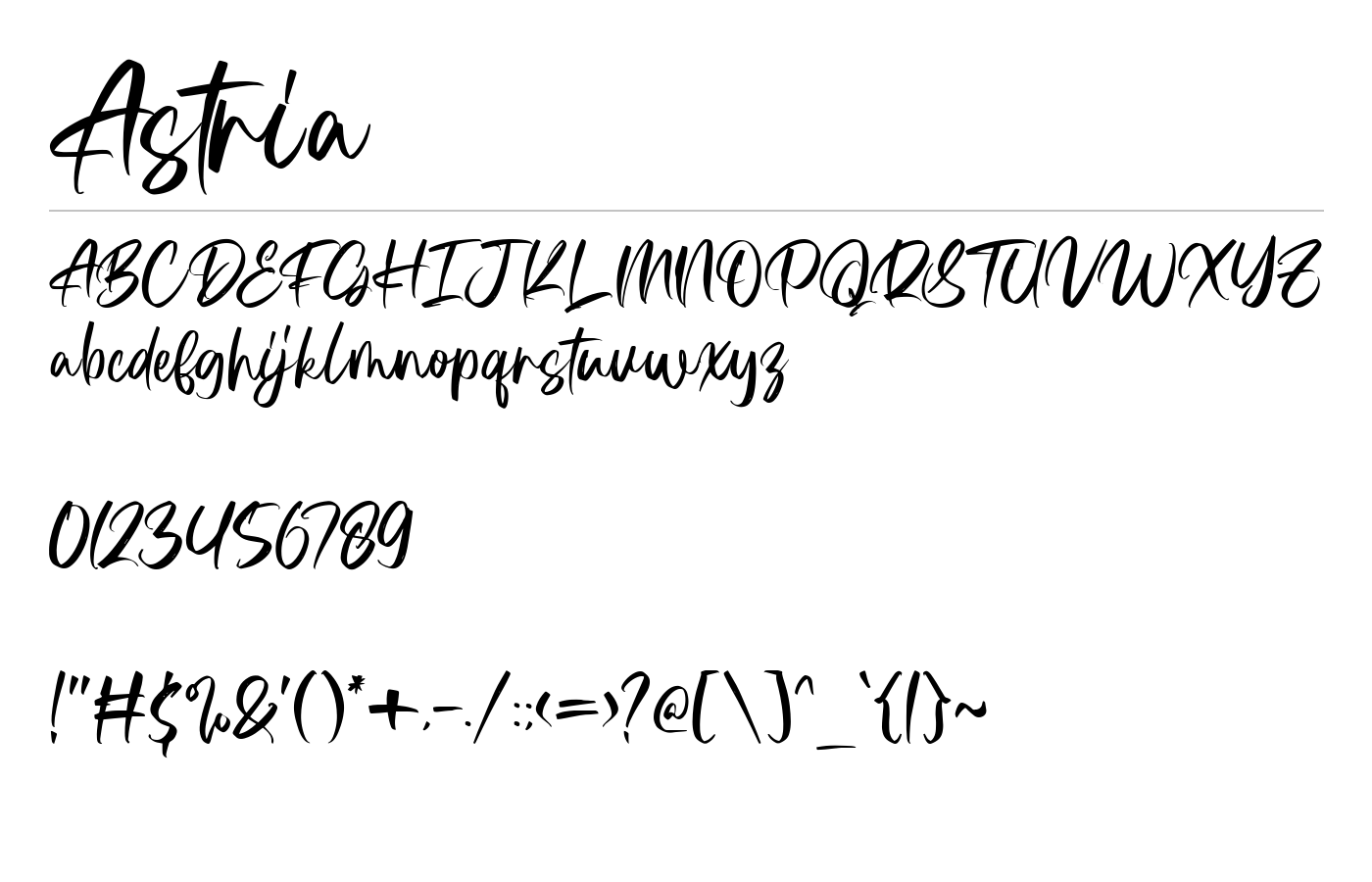
Astria is a lively and elegant script font characterized by its flowing, hand-brushed strokes and a dynamic, slightly casual feel. Its moderate contrast and organic curves make it perfect for adding a personal, artistic touch to branding, invitations, and social media graphics, where a stylish yet approachable vibe is desired. This font works best in display settings, especially for headlines or logos, where its personality and charm can truly stand out.
Astria Font
About Astria Font